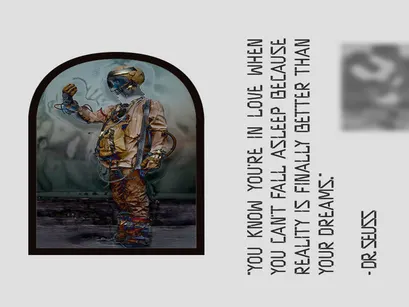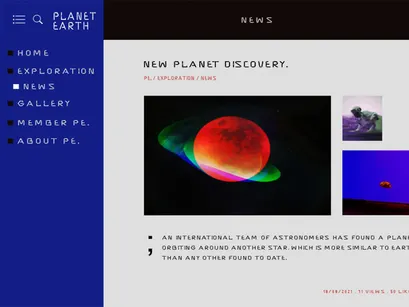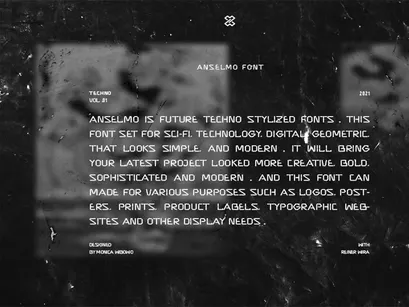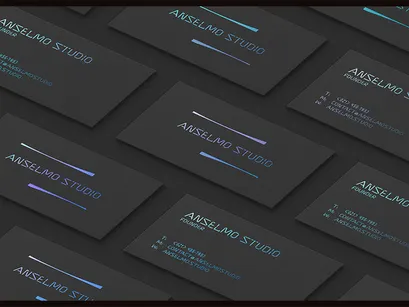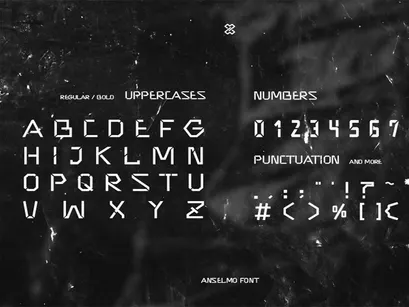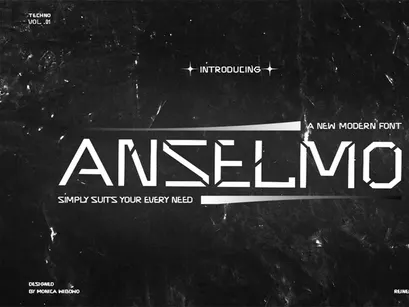
Anselmo – Free Techno Font
Anselmo – Free Techno Font is Future Techno stylized fonts designed and released for free by Monica Wibowo (https://linktr.ee/graphicdesignbymon). This font is set for sci-fi, Technology, digital, Geometric, which looks simple, and modern. It will bring your latest project to look more Creative, bold, sophisticated, and modern. And this font can be made for various purposes such as logos, posters, prints, product labels, typographic websites, and other display needs.